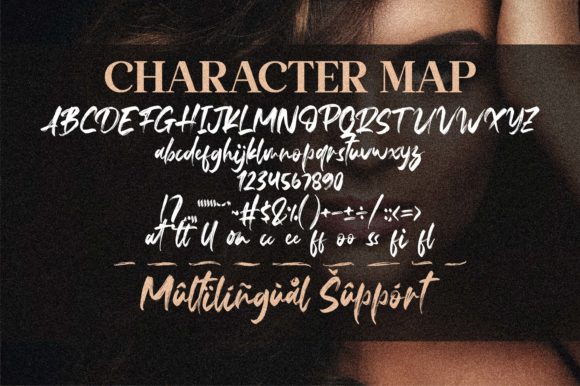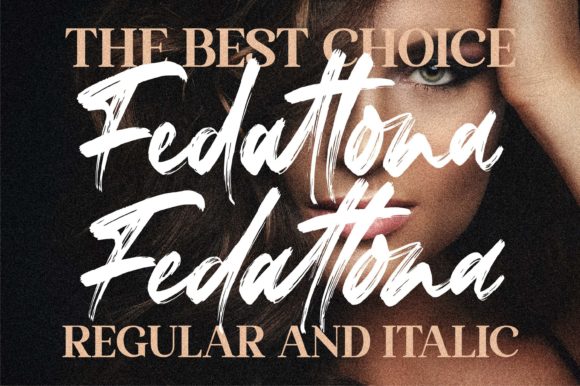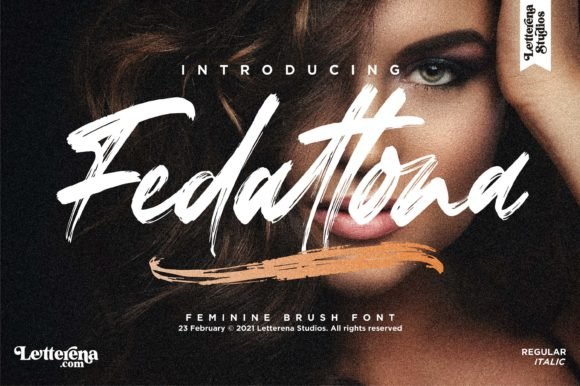
Introduction to Fedattona Font
Fedattona is a cool and trendy brushed display font.
Rough textured and unique, this font will make each of your designs come alive .
Key Features of Fedattona Font
Why Choose Fedattona Font?
Fedattona Font offers exceptional quality and versatility, making it a valuable addition to your design toolkit. Whether you’re creating for personal projects or commercial use, Fedattona Font delivers professional results.